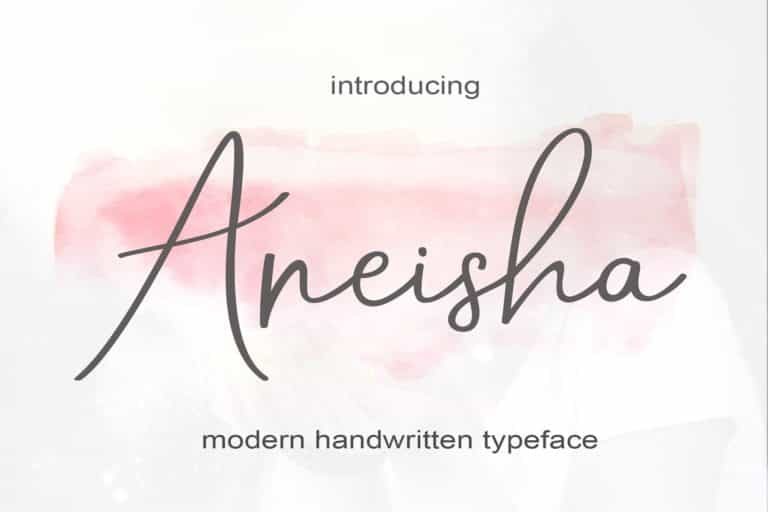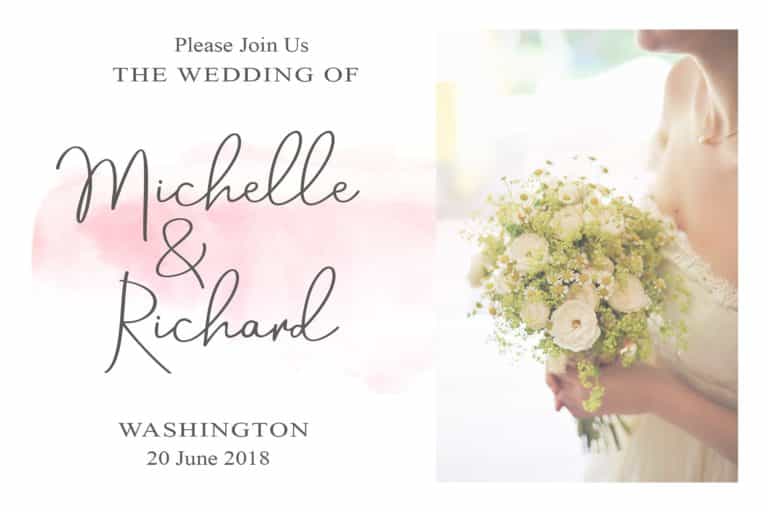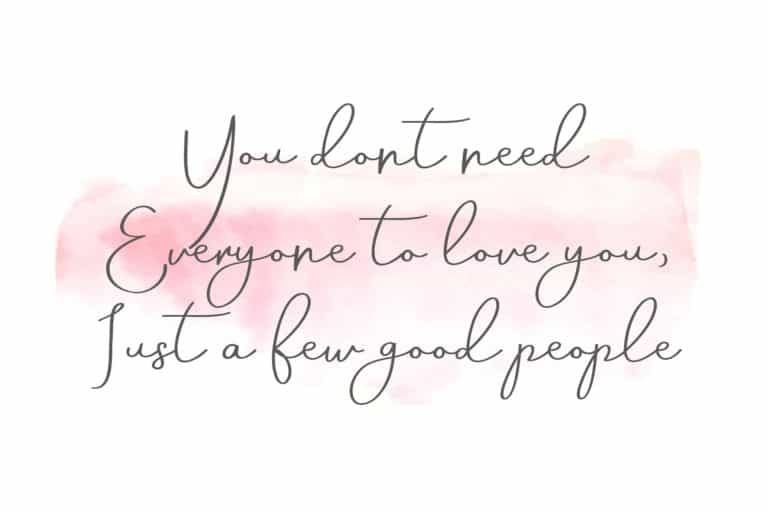
Introducing Aneisha Font. Aneisha is a contemporary calligraphy font which has the current handwriting style, this font can be used for branding, wedding invites, magazines, mugs, business cards, quotes and posters. You can try first if you want to buy this font. Aneisha comes in various versions, so you can choose the best one for your design.